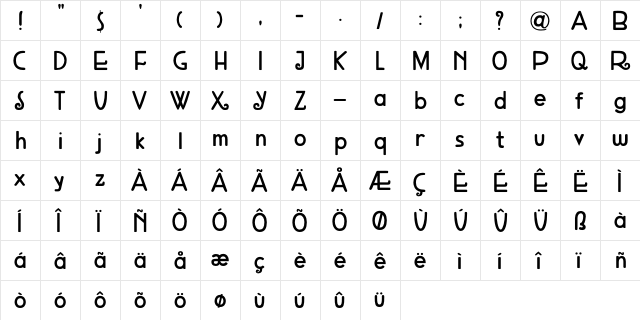
Neuer Weltschmerz DEMO Regular
| Foundry | David Kerkhoff |
| Designer | David Kerkhoff |
Design Context for Neuer Weltschmerz DEMO Typeface
Neuer Weltschmerz DEMO takes a measured approach to typography — its balanced proportions and neutral character make it a reliable workhorse for both digital and print work.